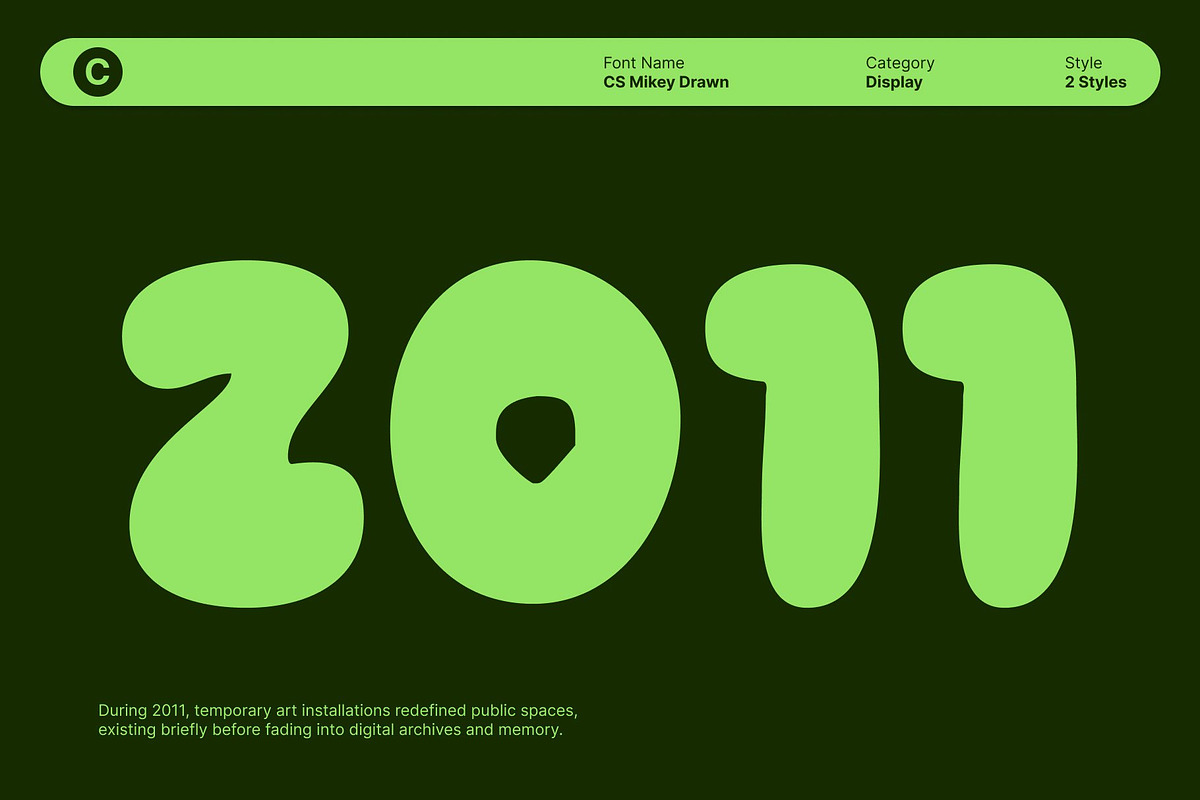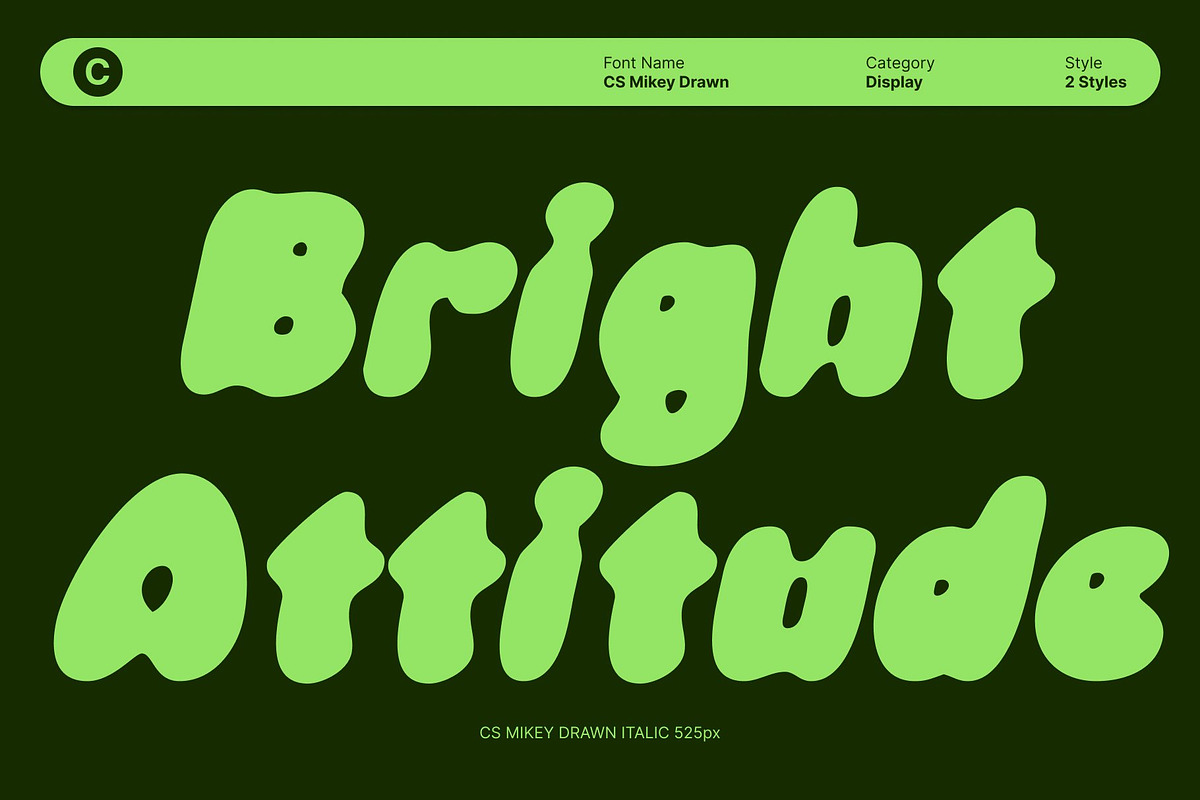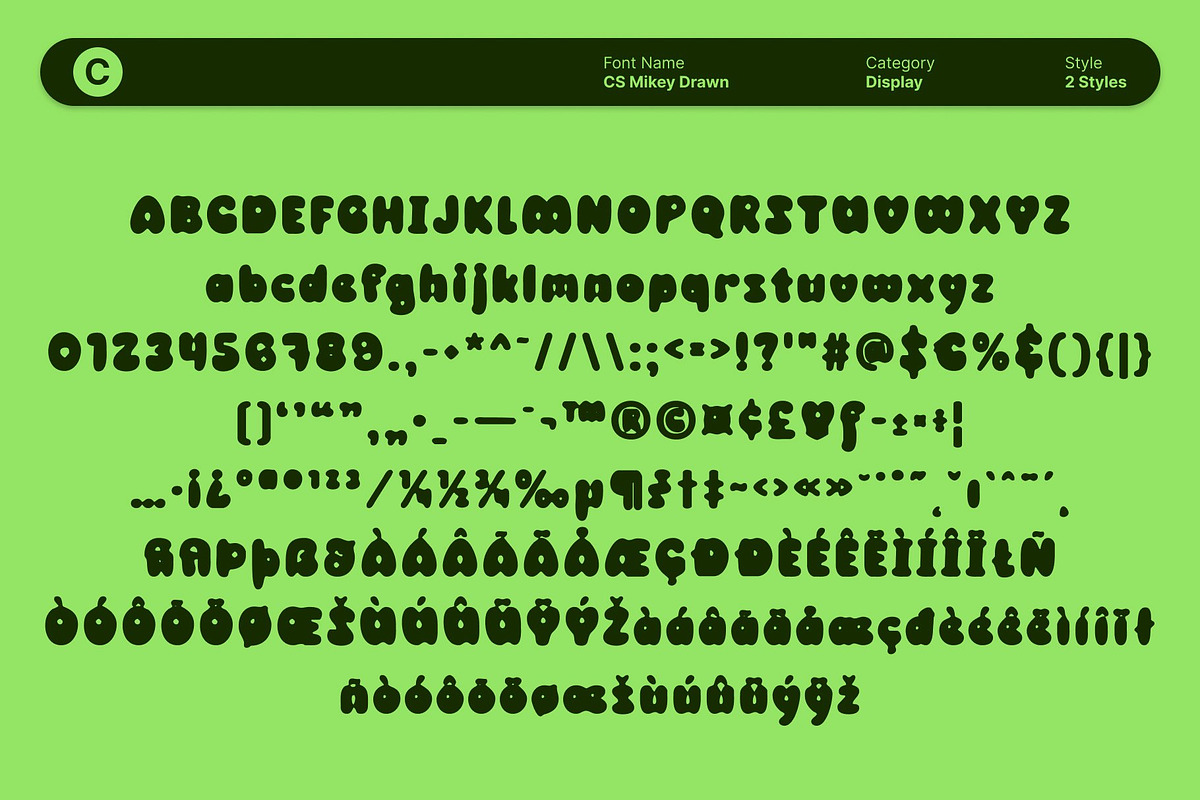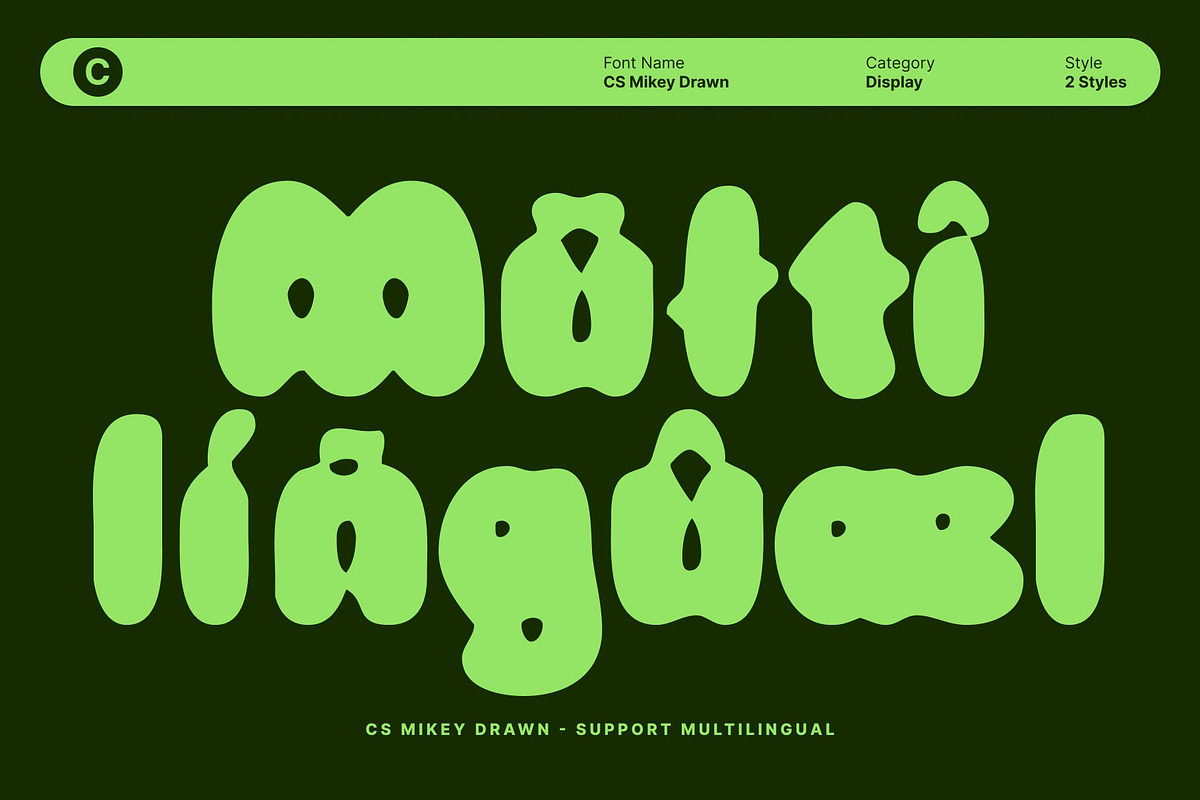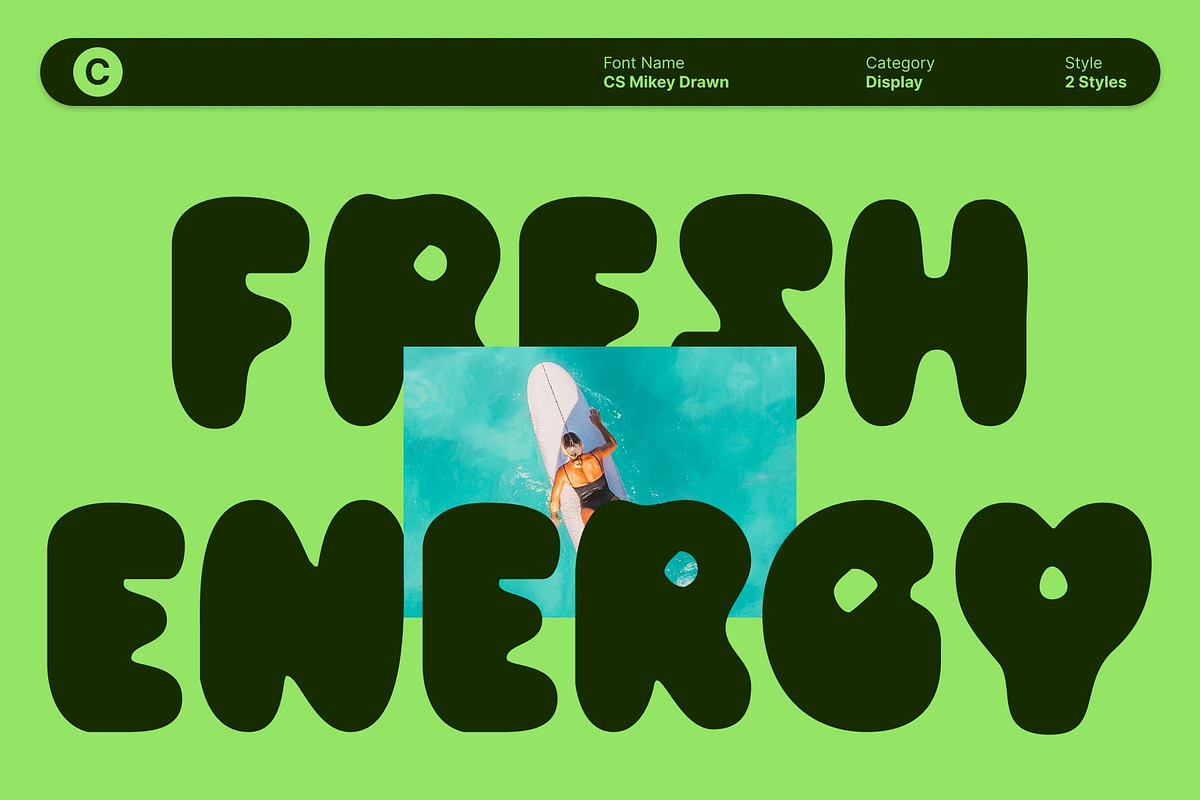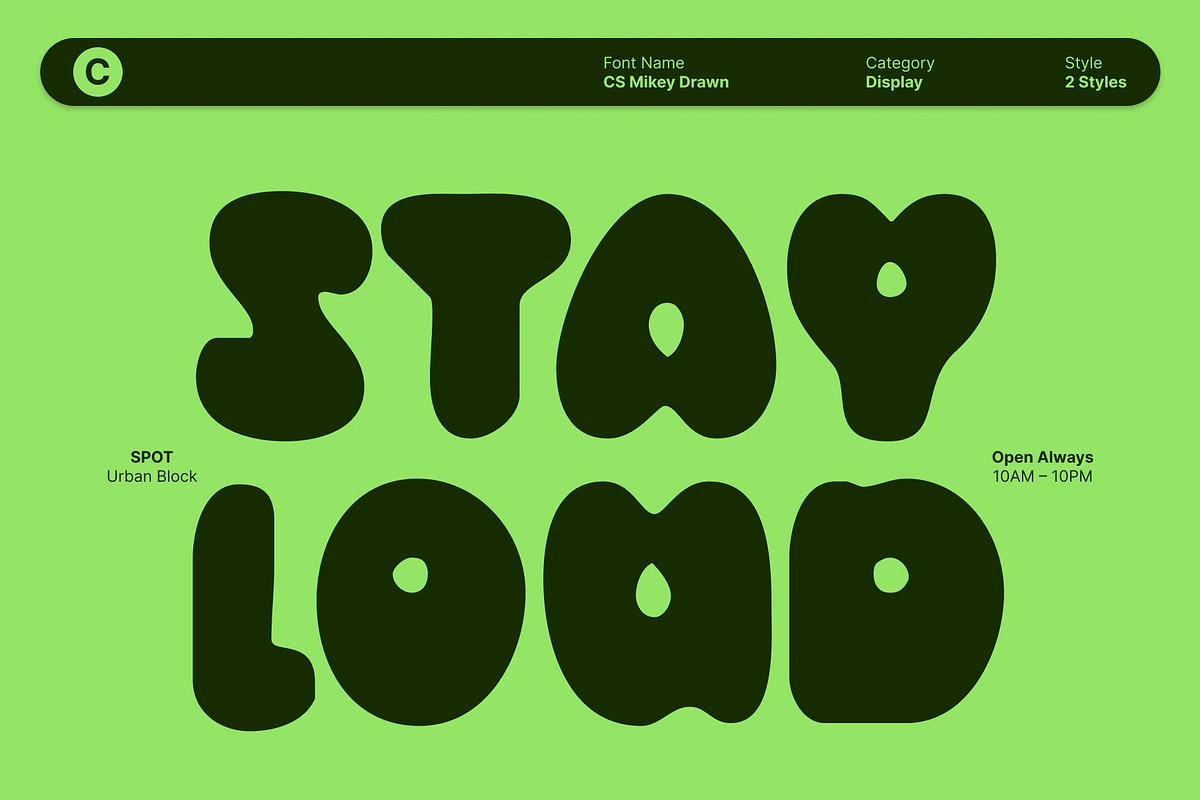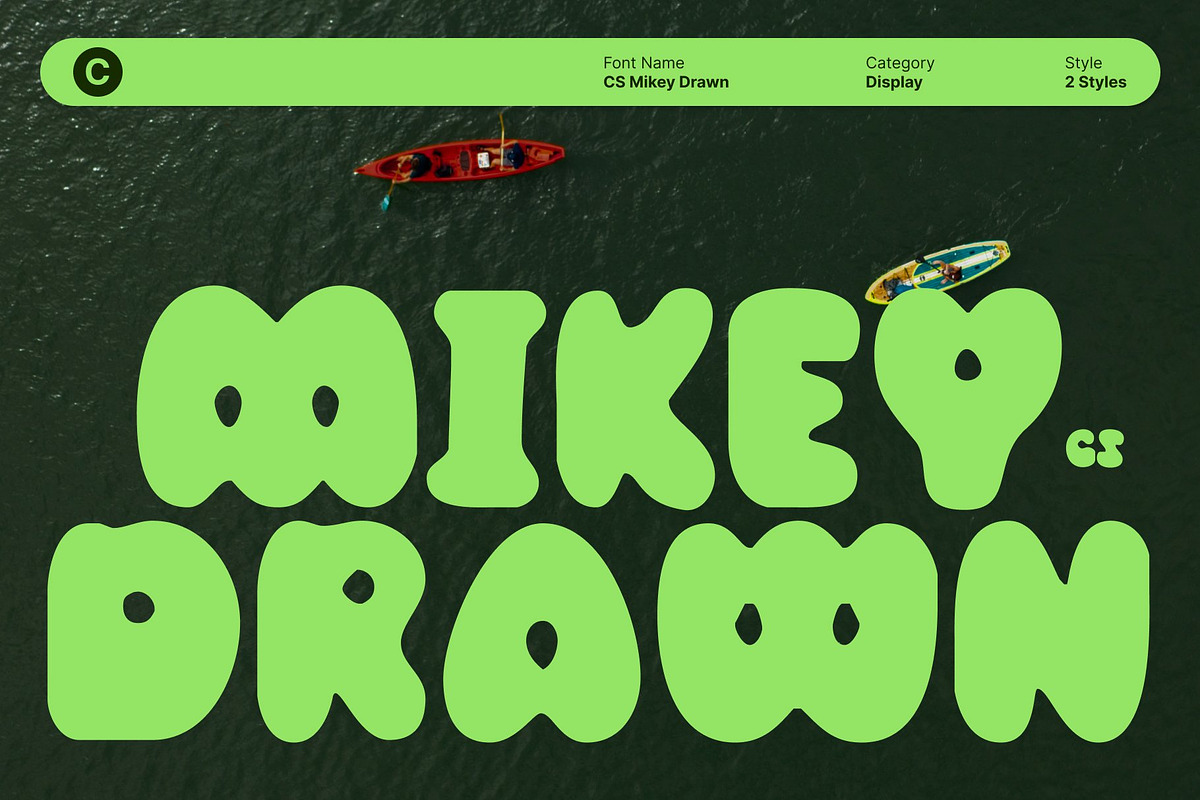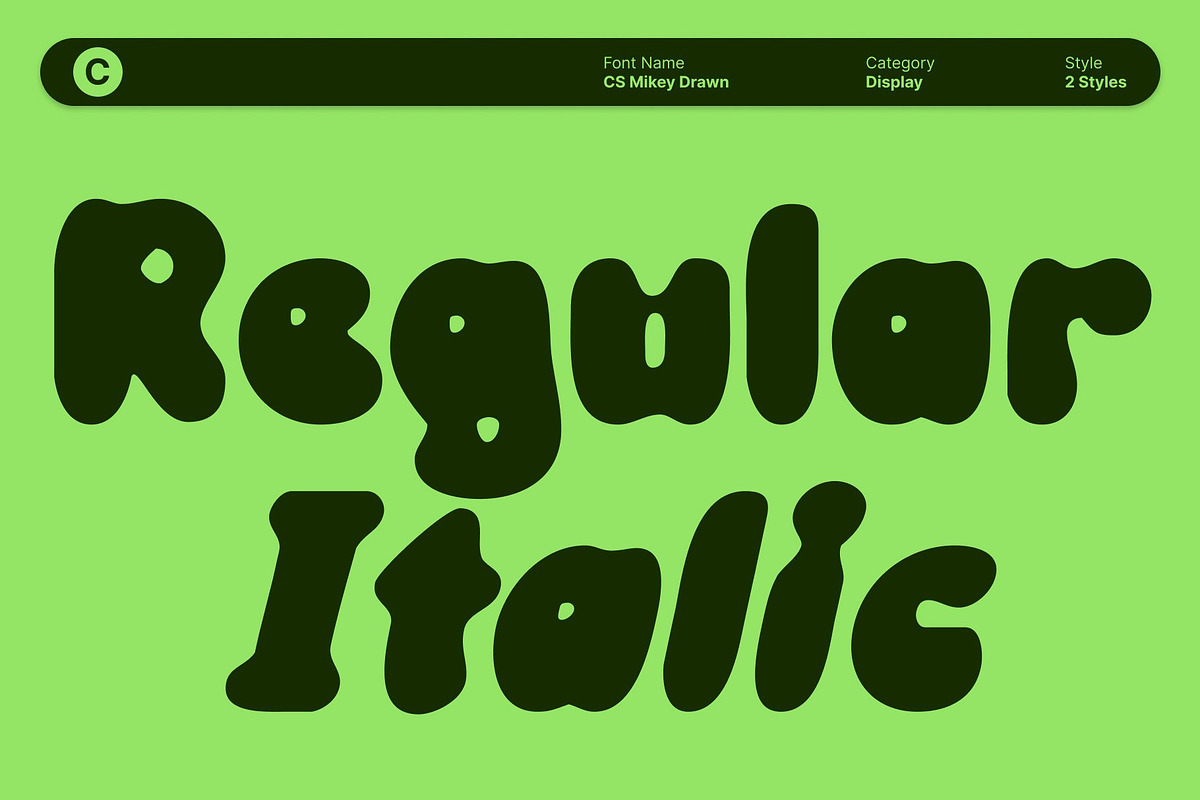
CS Mikey Drawn
CS Mikey Drawn – Bubble Display Font with Playful Personality
Bubble Display Font with Drawn Texture This is a modern bubble display font designed to deliver pure fun, friendliness, and expressive charm. Built with bold, rounded letterforms and soft edges, this typeface feels inflated with personality and warmth. The added hand-drawn texture enhances its playful nature, giving each character a lively, organic quality that feels approachable, cheerful, and full of energy.
Bold Rounded Shapes with Expressive Character The chunky, bubbly forms of create an instantly joyful visual impact. Exaggerated curves and smooth contours give the font a soft, friendly appearance while maintaining strong visibility. Its bold structure ensures readability at display sizes, making it perfect for designs that want to communicate excitement, positivity, and charm at first glance.
Funky Vibe Inspired by Playful Creativity This font captures a funky and youthful aesthetic inspired by doodles, childhood memories, and expressive graphic styles. The playful rhythm of the letterforms radiates fun and creativity, making the font feel trendy yet timelessly joyful. The drawn effect adds authenticity and warmth, preventing the design from feeling overly polished or mechanical.
Perfect for Youthful Branding and Creative Projects Designed for expressive and joyful applications, excels in youth branding, toy packaging, children’s projects, playful logos, merchandise, and vibrant digital content. Its bold personality and adorable flair make it ideal for designs that aim to feel fun, energetic, and memorable.
- CS Mikey Drawn Regular
- CS Mikey Drawn Italic